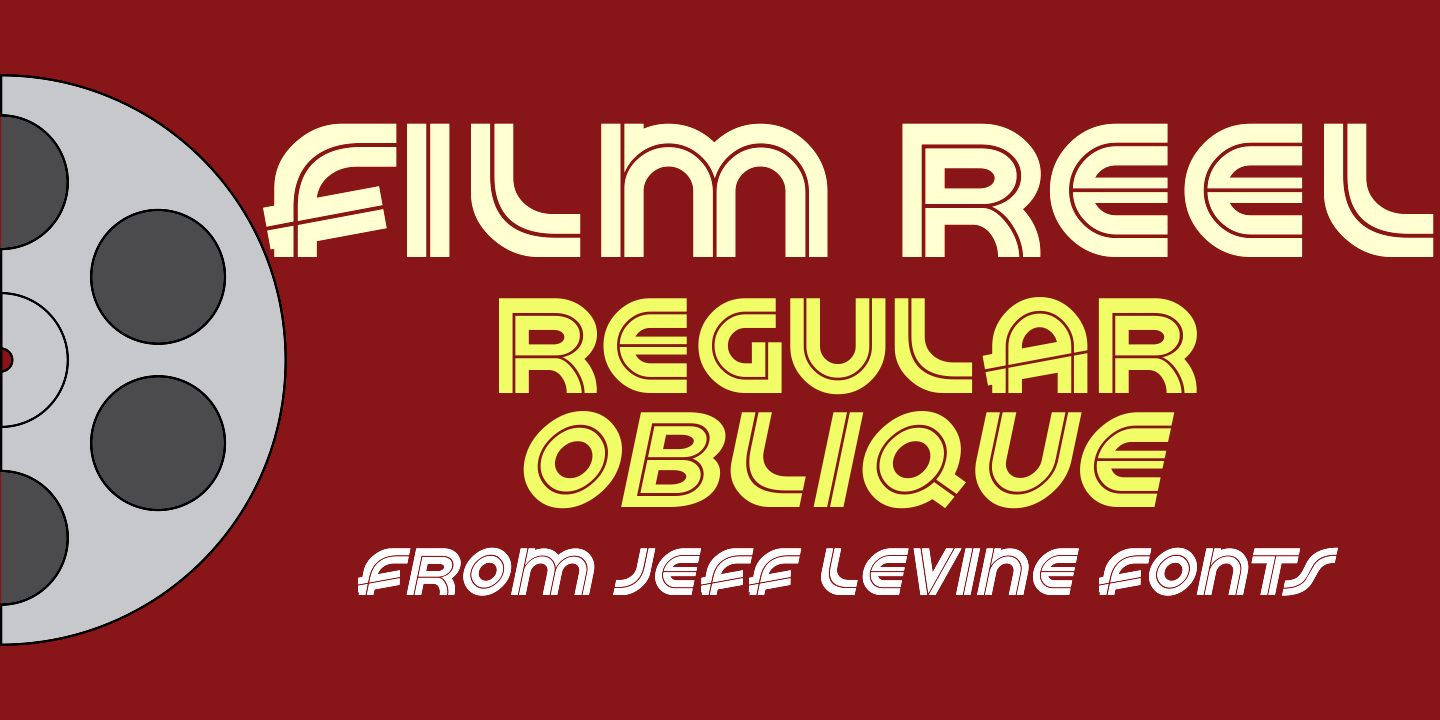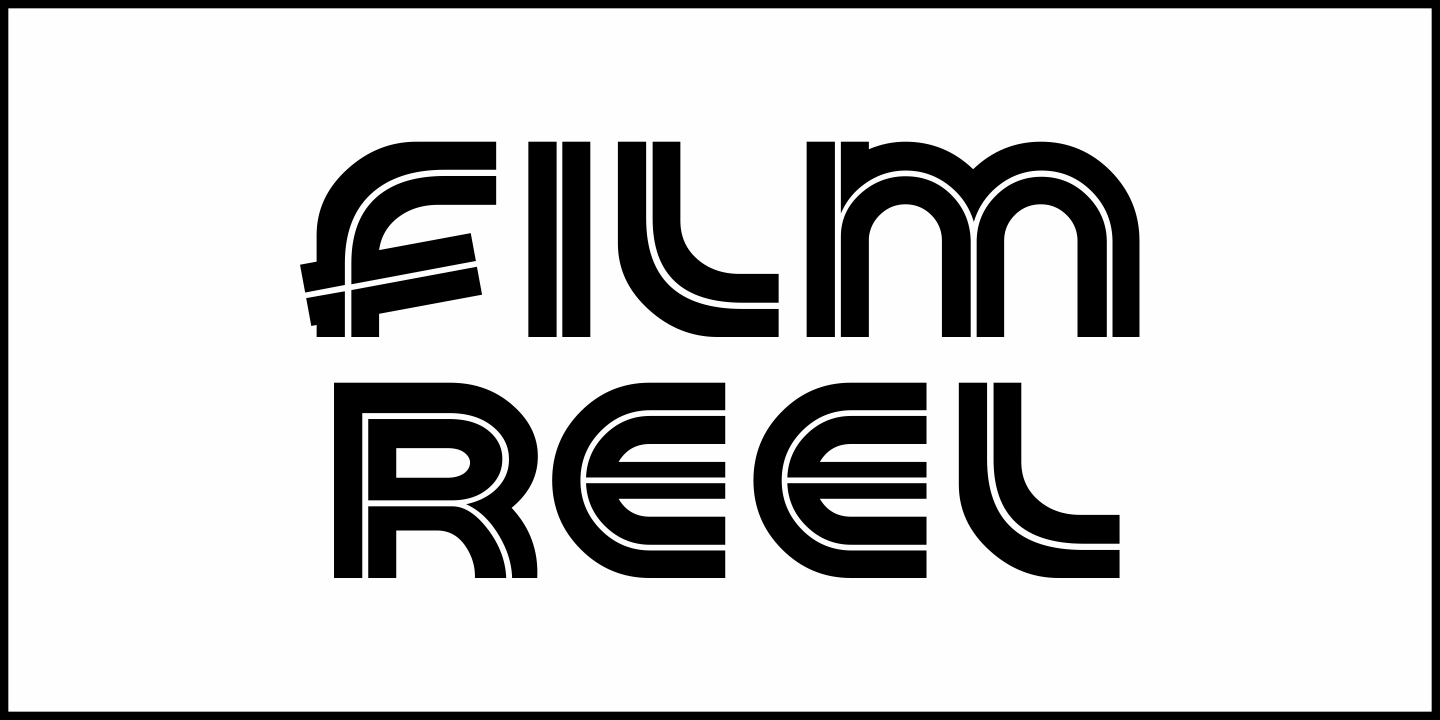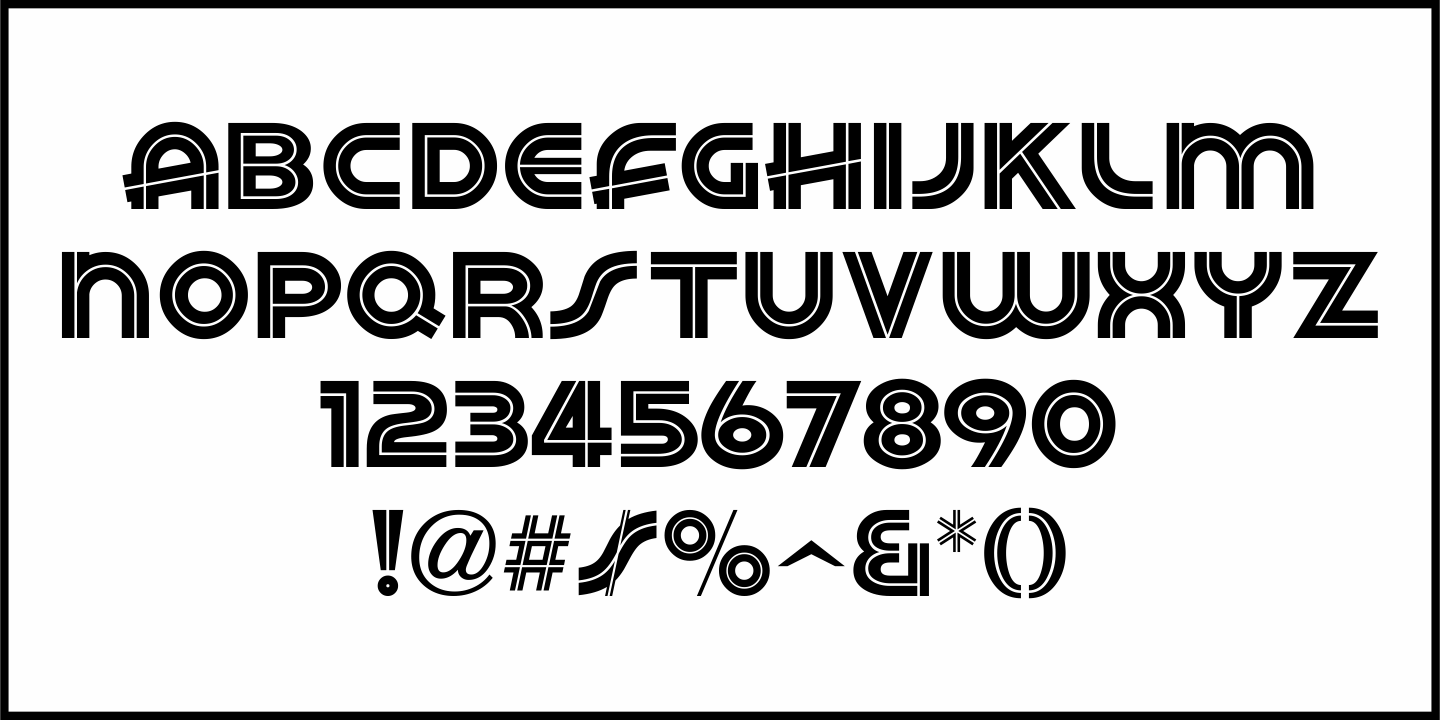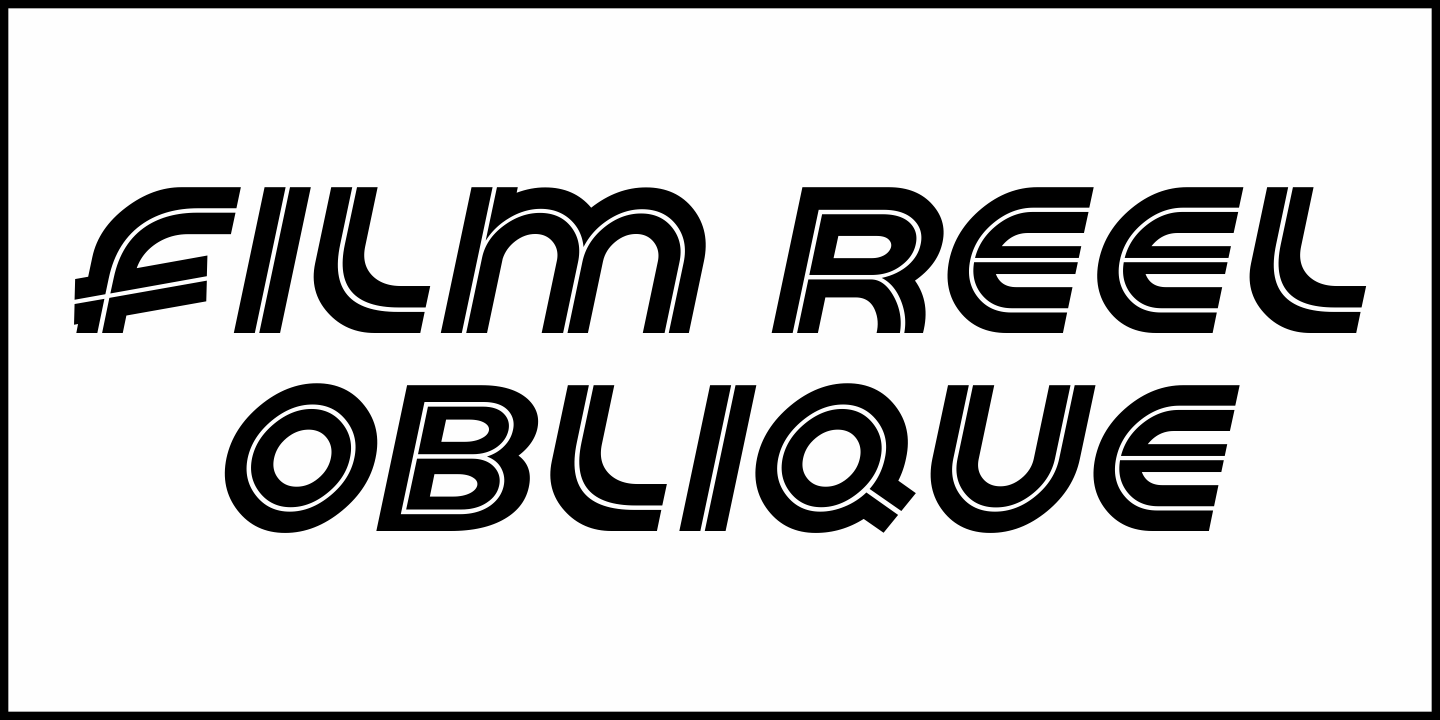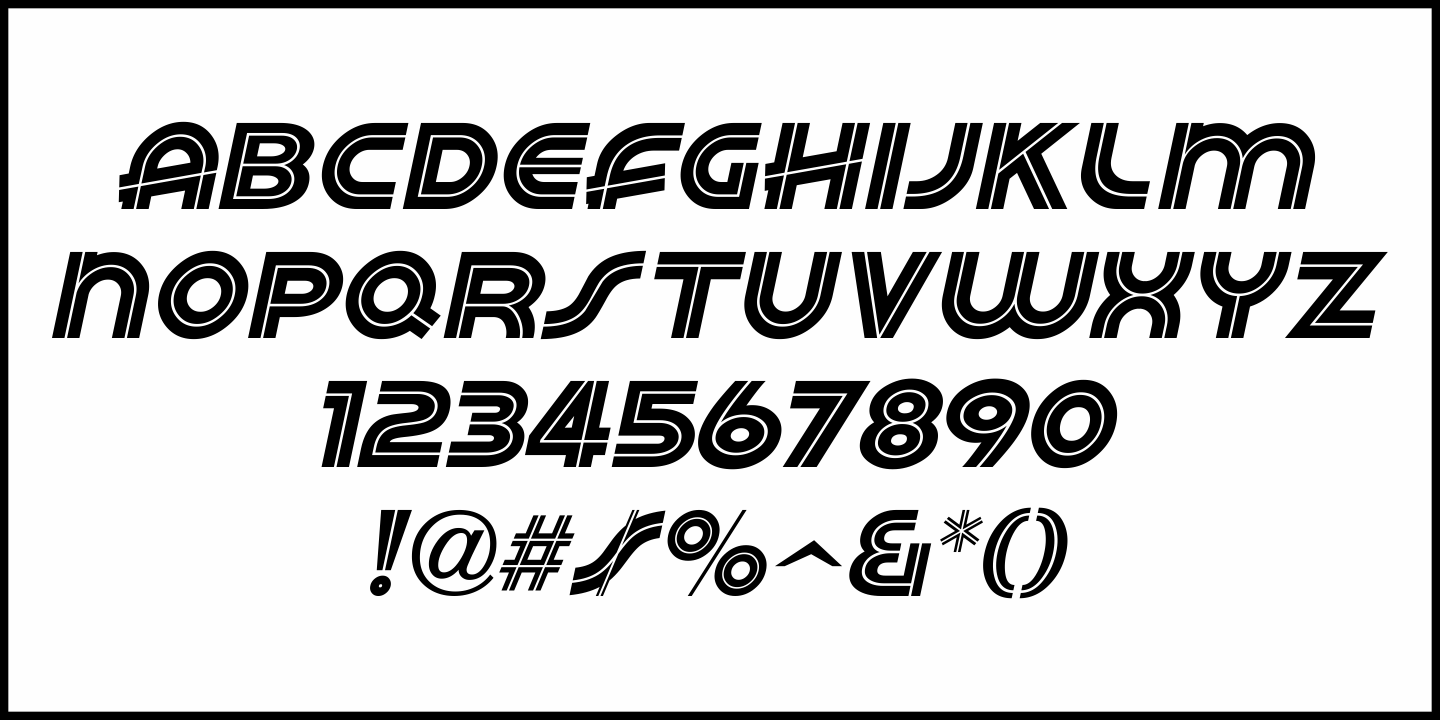
Film Reel
In a World War II training film from the U.S. Signal Corps, the opening title card saying 'First Aid” was hand lettered in an extra bold, Art Deco inline style.
Those two words (with seven available letters) used as a work model has inspired Film Reel JNL, which is available in both regular and oblique versions.